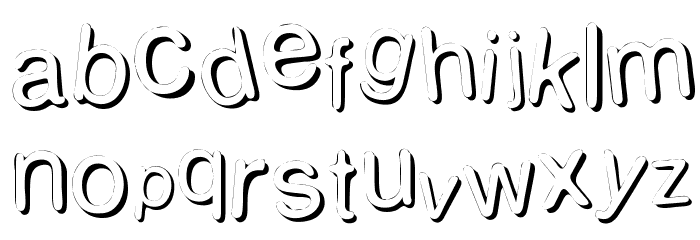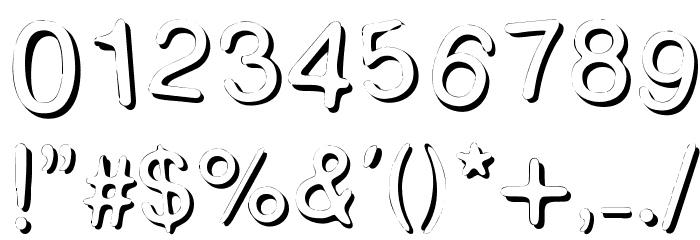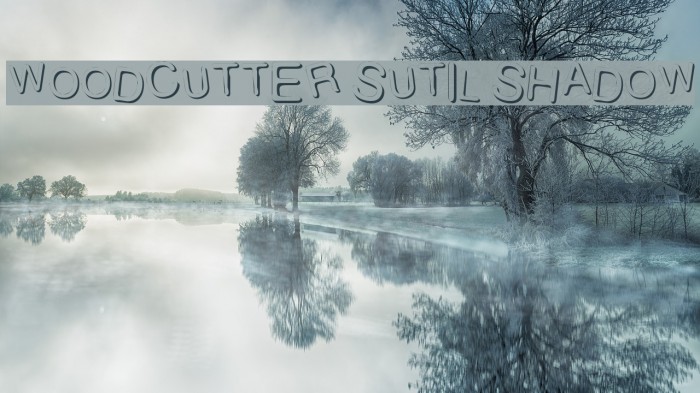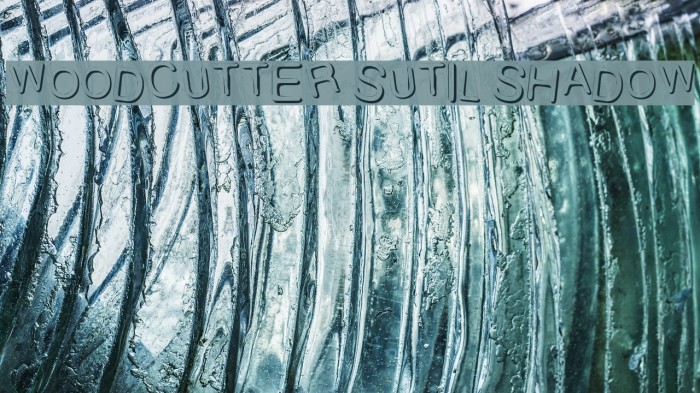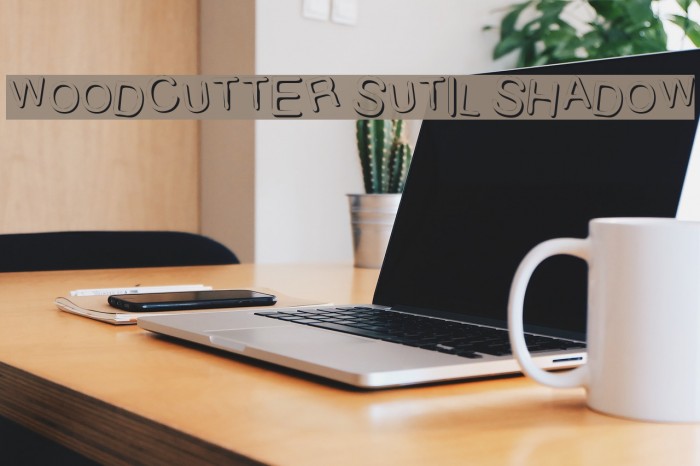
WOODCUTTER SUTIL SHADOW Font
This font features a playful and bold design with a distinct shadow effect that gives it a three-dimensional appearance. The characters are rounded and slightly irregular, adding a whimsical touch. The uppercase and lowercase letters maintain a consistent style, with smooth curves and a friendly demeanor. The numbers and special characters are equally stylized, ensuring uniformity across the font. This font's unique shadow effect makes it stand out, making it suitable for eye-catching designs.
A playful, bold font with a three-dimensional shadow effect.
- Proposed Projects: Ideal for children's book covers, playful posters, creative branding, and any project needing a fun, standout typeface.